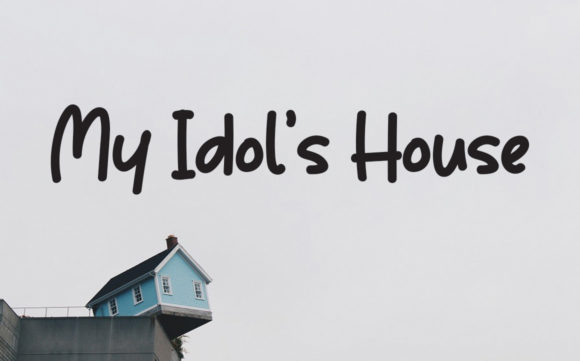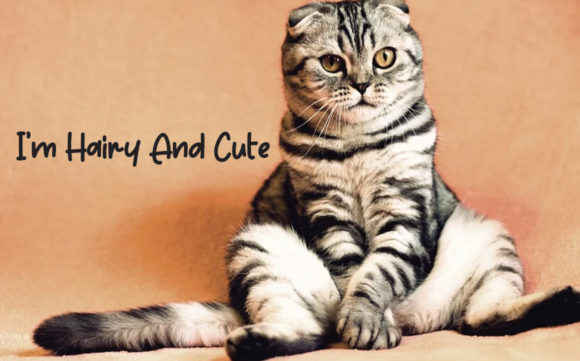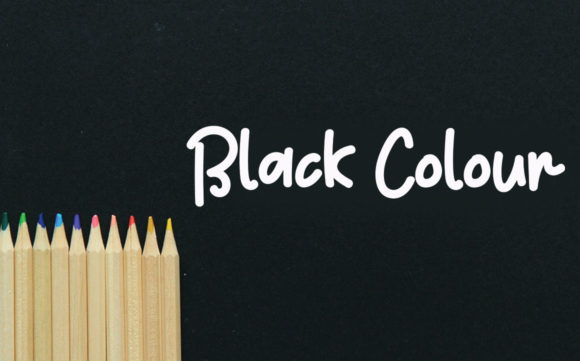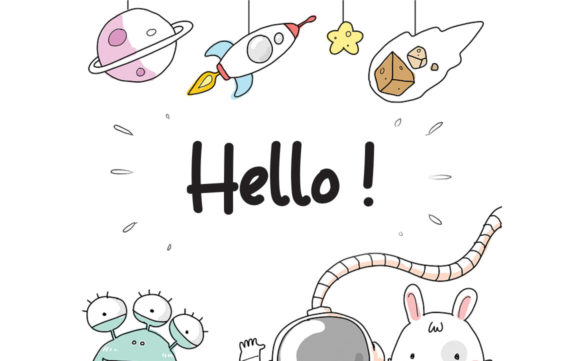
Unleash Your Creativity with the Boho School Font
Have you ever found yourself staring at a blank page, waiting for inspiration to strike? The blank canvas can be intimidating, but the right tools can make all the difference. For designers, the perfect font can be the spark that ignites a creative idea. And when it comes to adding a touch of whimsy and personality to your designs, the Boho School Font is a game-changer.
This adorable, brushed handwritten font is more than just a pretty face – it’s a versatile workhorse that can adapt to any project, from social media graphics to wedding invitations. Whether you’re a seasoned pro or a design newbie, the Boho School Font is an essential addition to your toolkit. With its effortless charm and effortless legibility, it’s the perfect choice for designers looking to add a touch of bohemian flair to their work.
Key Features of Boho School Font
- Font Family: Boho School is a unique and playful script font designed to evoke a sense of nostalgia and whimsy.
- Unique Characteristics: Boho School features a distinctive, handwritten style with flowing connections and subtle flair, making it perfect for adding a touch of personality to designs.
Boho School Font Review
First off, I have to say that I’m a fan of the whimsical vibe that this font gives off. ✨ It’s perfect for projects that need a bit of a bohemian feel, and it’s especially great for titles and headings. The font is highly customizable, and the various styles and weights make it easy to create a cohesive look.
- ✨ Playful feel: The Boho School Font is perfect for projects that need a bit of whimsy.
- ✨ Highly customizable: With various styles and weights, this font is easy to work with.
- ✨ Great for titles and headings: The font is perfect for grabbing attention.
That being said, there are a few limitations to keep in mind. ⚠️ The font can be a bit too ornate for some projects, and it may not be the best choice for body text. Additionally, some users have reported issues with kerning and spacing.
- ⚠️ May be too ornate: The font can be overwhelming if used for body text.
- ⚠️ Kerning and spacing issues: Some users have reported problems with these aspects of the font.
Overall, I think the Boho School Font is a great addition to any designer’s toolkit. While it may have some limitations, its unique style and high level of customizability make it a great choice for projects that need a bit of flair.
The Boho School Font is ideal for creative projects such as:
- Bulletin boards and classroom decor
- Personalized gifts and party decorations